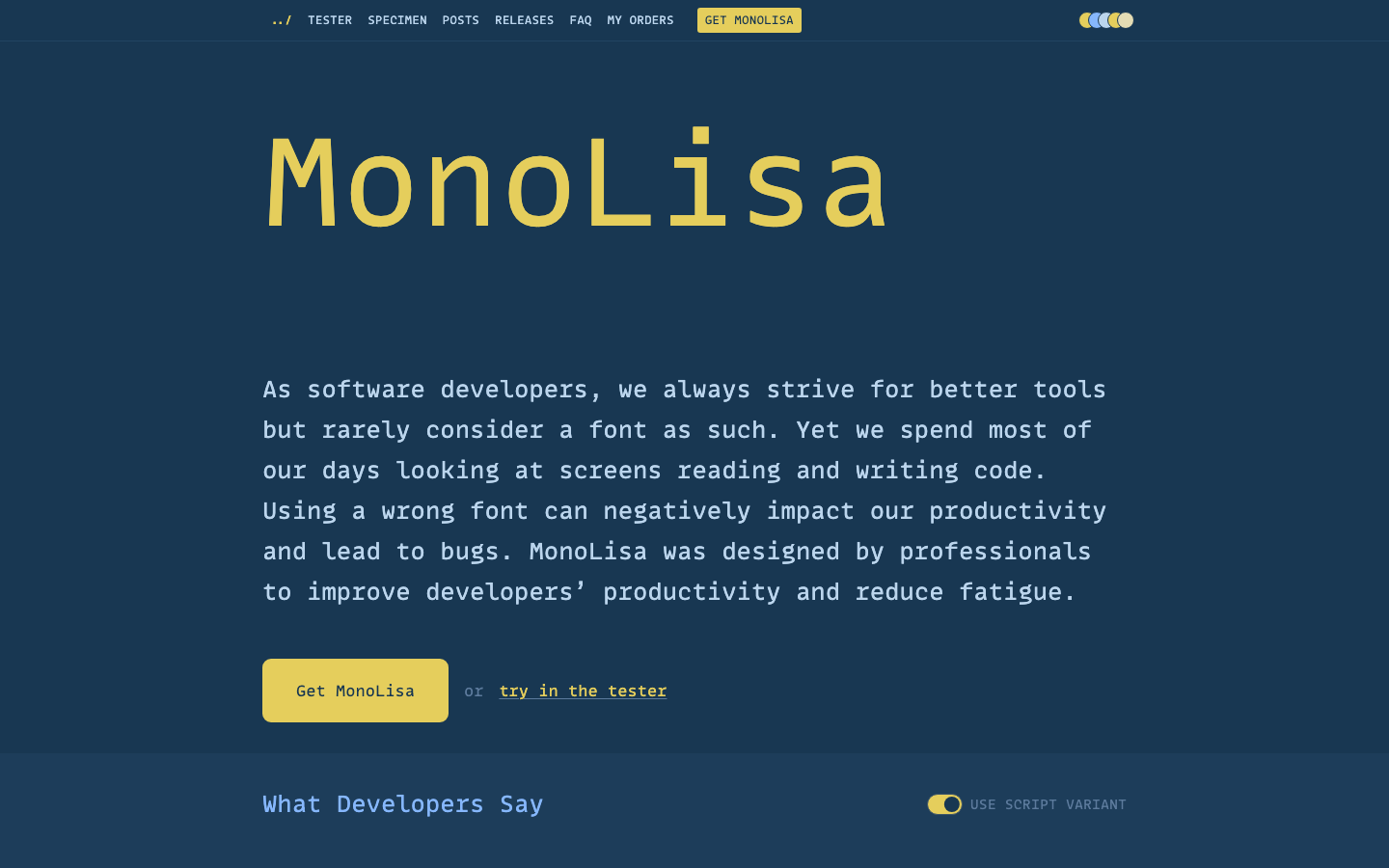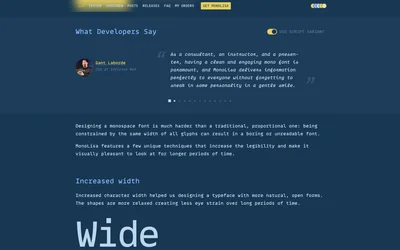
Monaco vs MonoLisa
Monaco and MonoLisa are both mono typefaces sharing a monospace foundation. Where Monaco leans tech, display, MonoLisa brings code, readable. Compare which suits your Terminal project.
Monaco
MonoLisa
| Feature | Monaco | MonoLisa |
| Classification | mono | mono |
| Source | Apple | Marcus Sterz |
Where You'll See These Fonts
Monaco
- Classic Mac Terminal
- TextMate (legacy)
- BBEdit (legacy)
- Vintage Mac applications
- Retro computing enthusiasts
Recommended: Monaco
- tech, display design character
- Suited for Code Editors and Legacy Systems
- From Apple
Consider: MonoLisa
- code, readable design character
- Suited for Code and Programming
- From Marcus Sterz